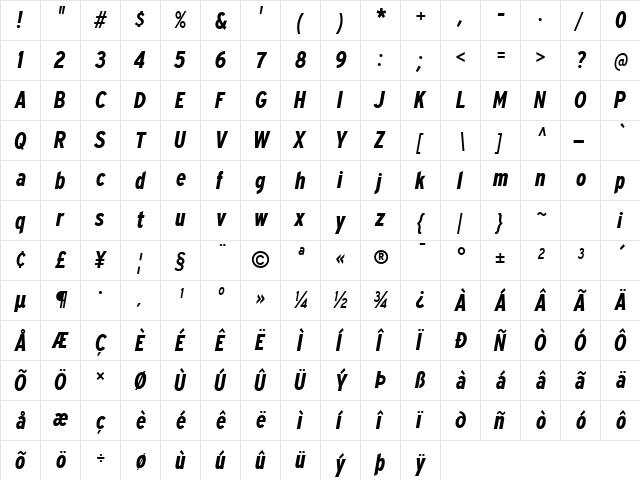
Expressway Condensed Bold Italic Font Preview
Design Context for Expressway Typeface
Expressway takes a measured approach to typography — its balanced proportions and neutral character make it a reliable workhorse for both digital and print work. The slanted form adds forward momentum and visual energy. Its bold stroke weight gives it real presence on the page. The condensed width makes it efficient for tight spaces without sacrificing legibility.
Pro Tip: Use Expressway for emphasis, pull quotes, and subheadings where its slanted energy can add rhythm to the layout.